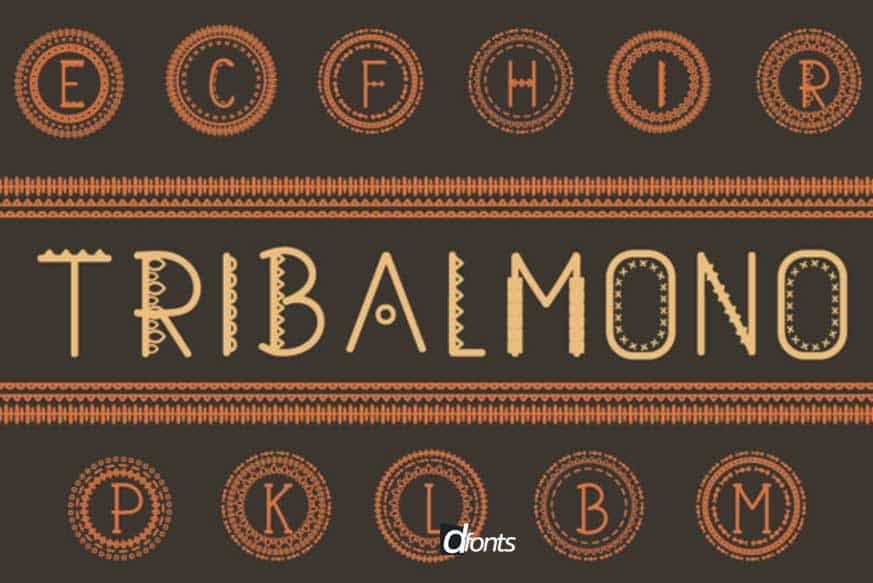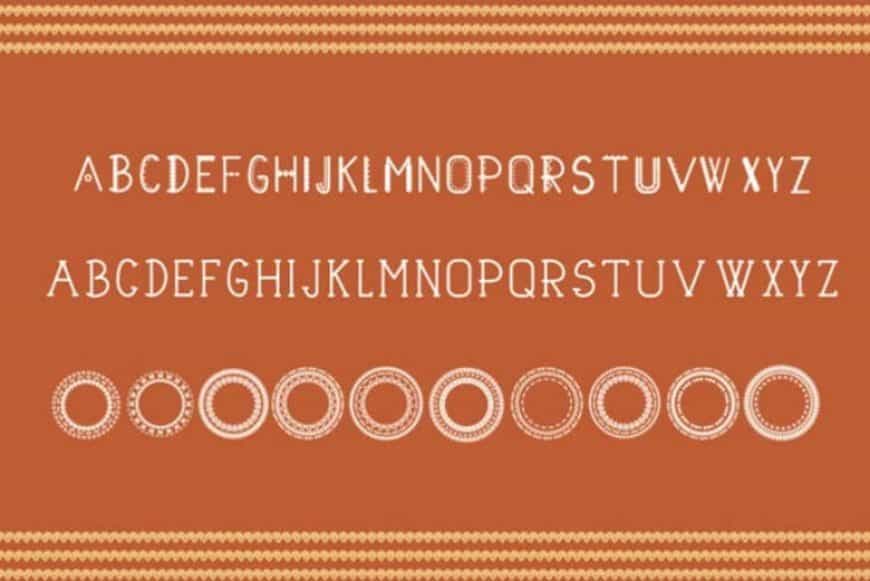
Discover Tribalmono Font, part of the Display Logos collection—a versatile and unique font perfect for adding a personal touch to your projects. Download it for free and enjoy crafting designs with style, from invitations to social media posts. This font is available exclusively for personal use, giving you the freedom to create without limits. Unlock your creativity with Tribalmono Font today!
Tribalmono is a monogram font that allows you to instantly create stylized monogram frames by typing a letter followed by a number (e.g., A1 or B2).